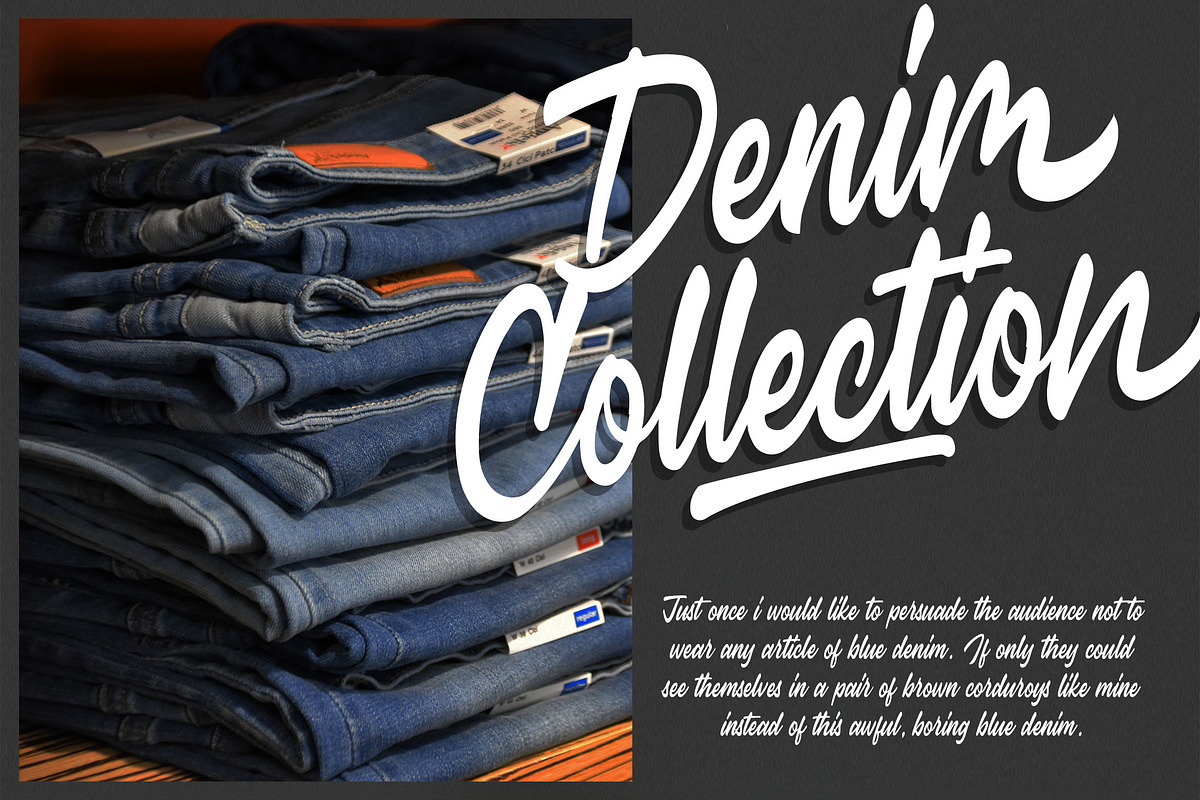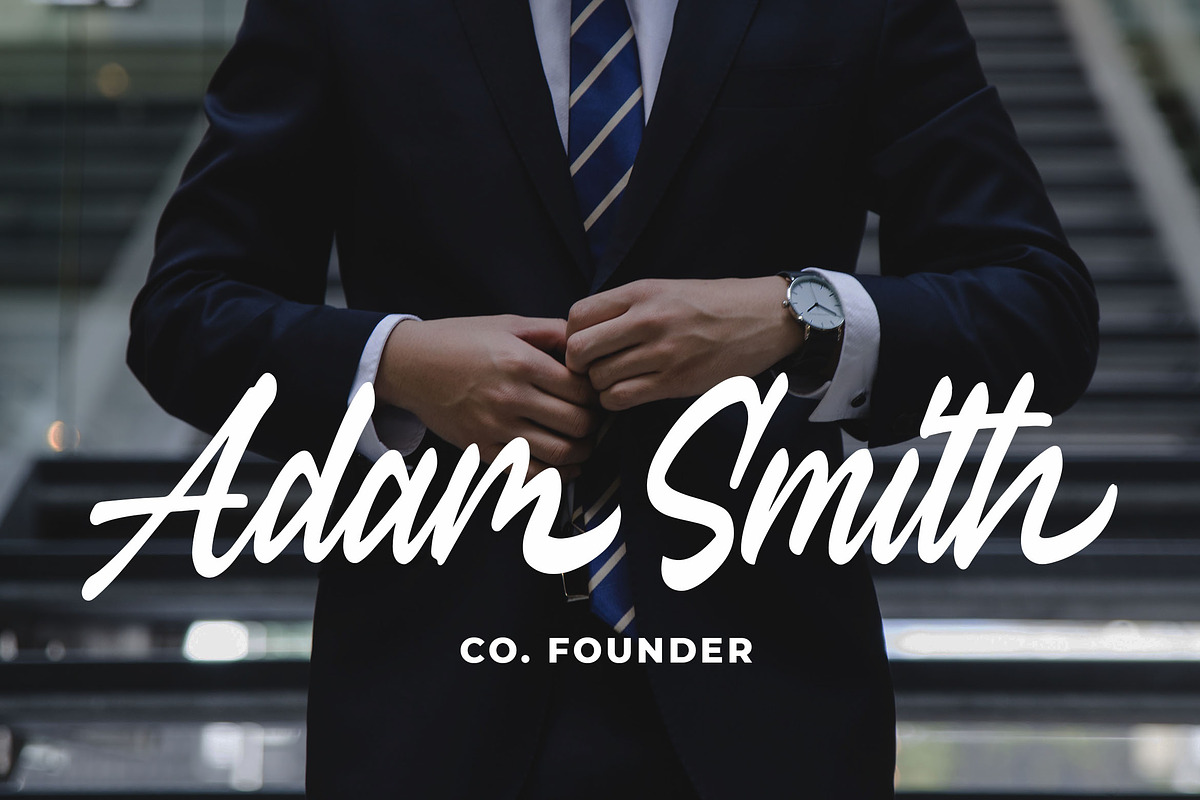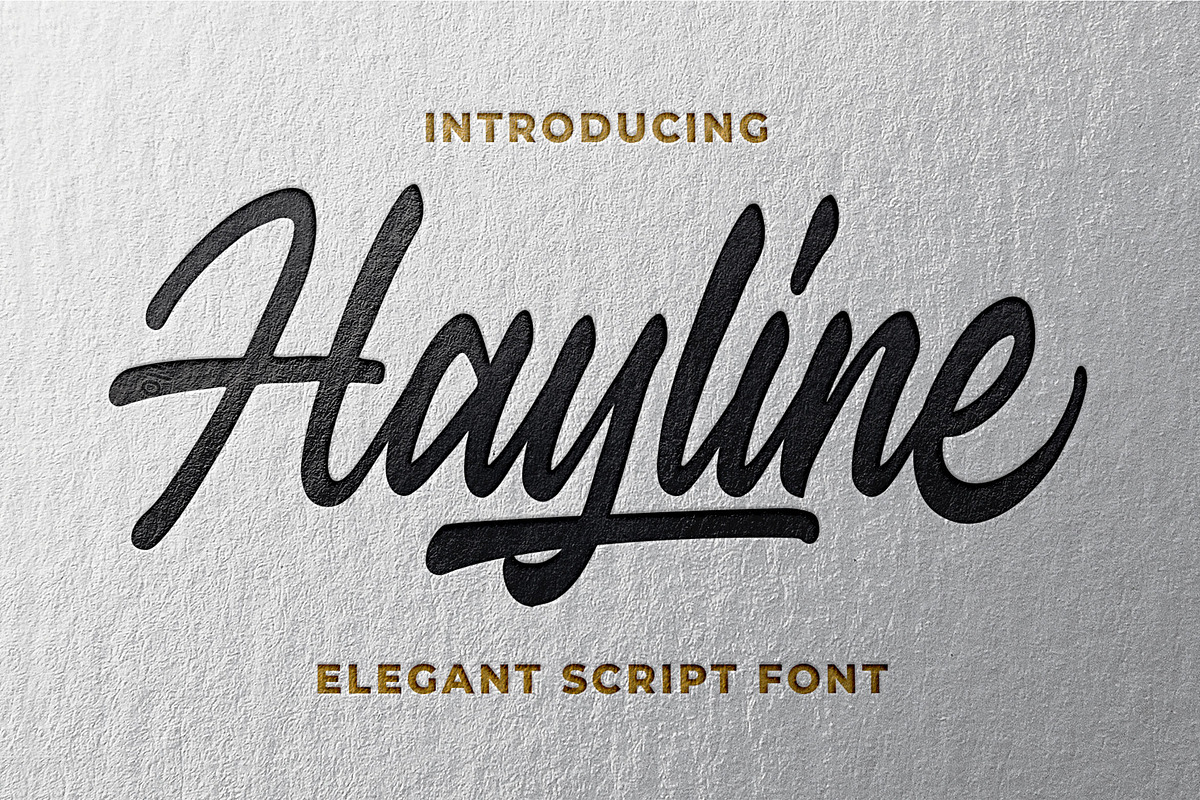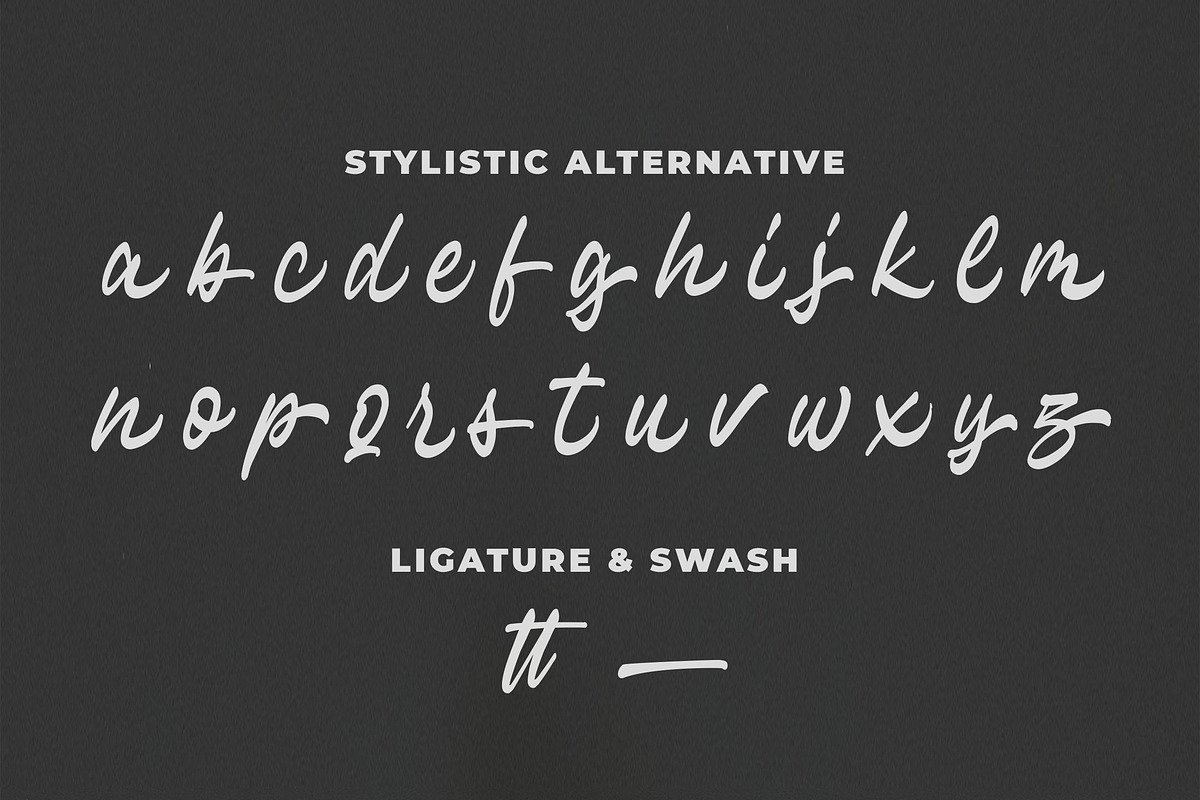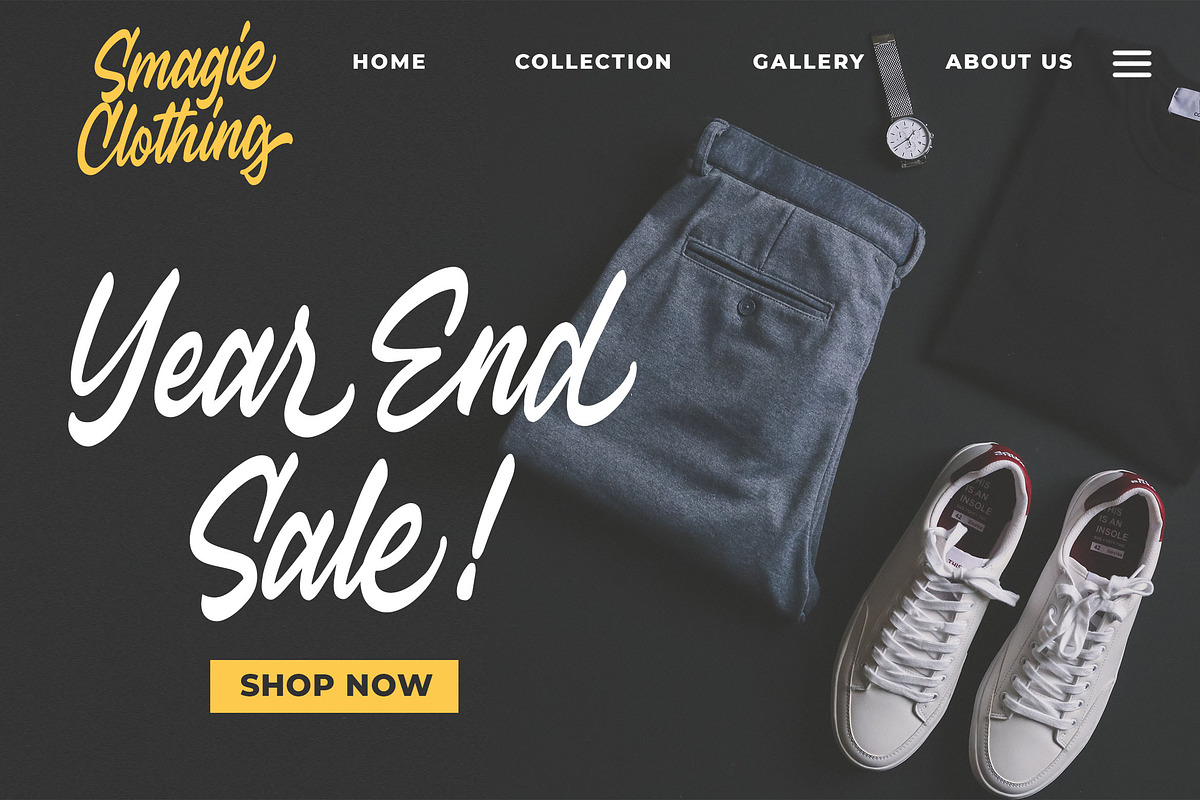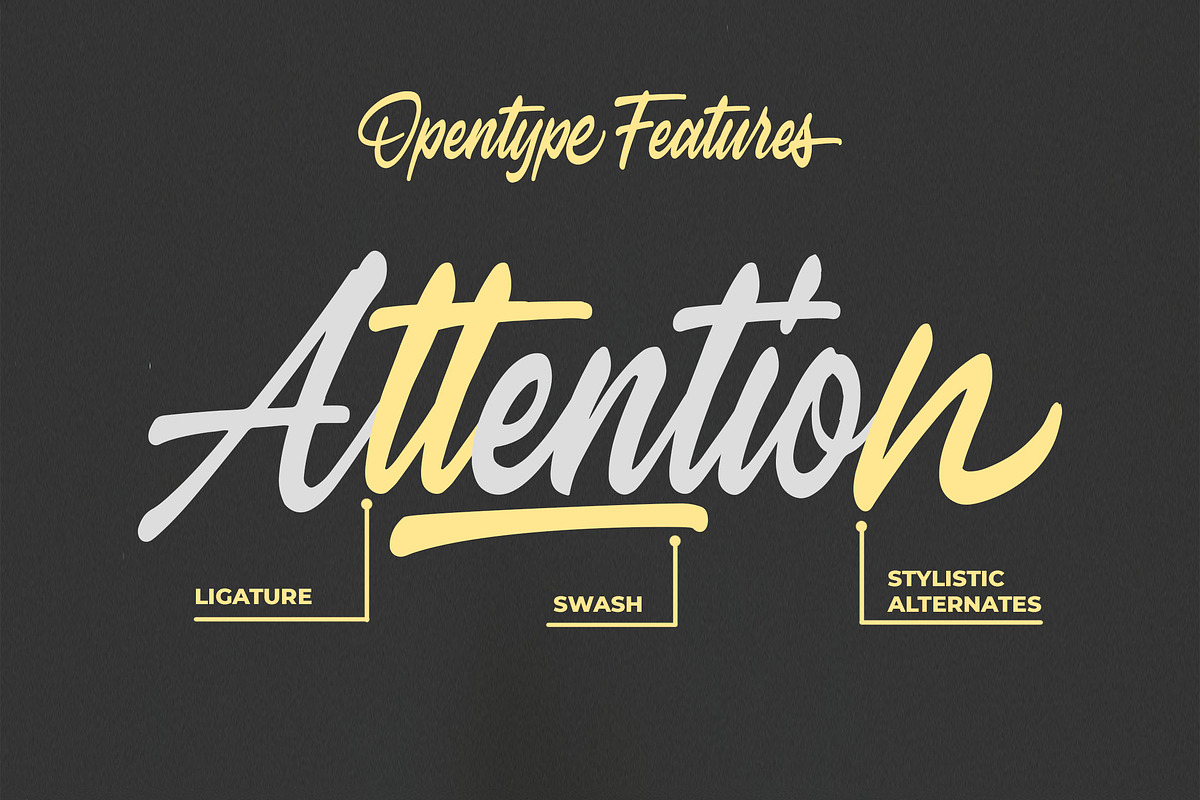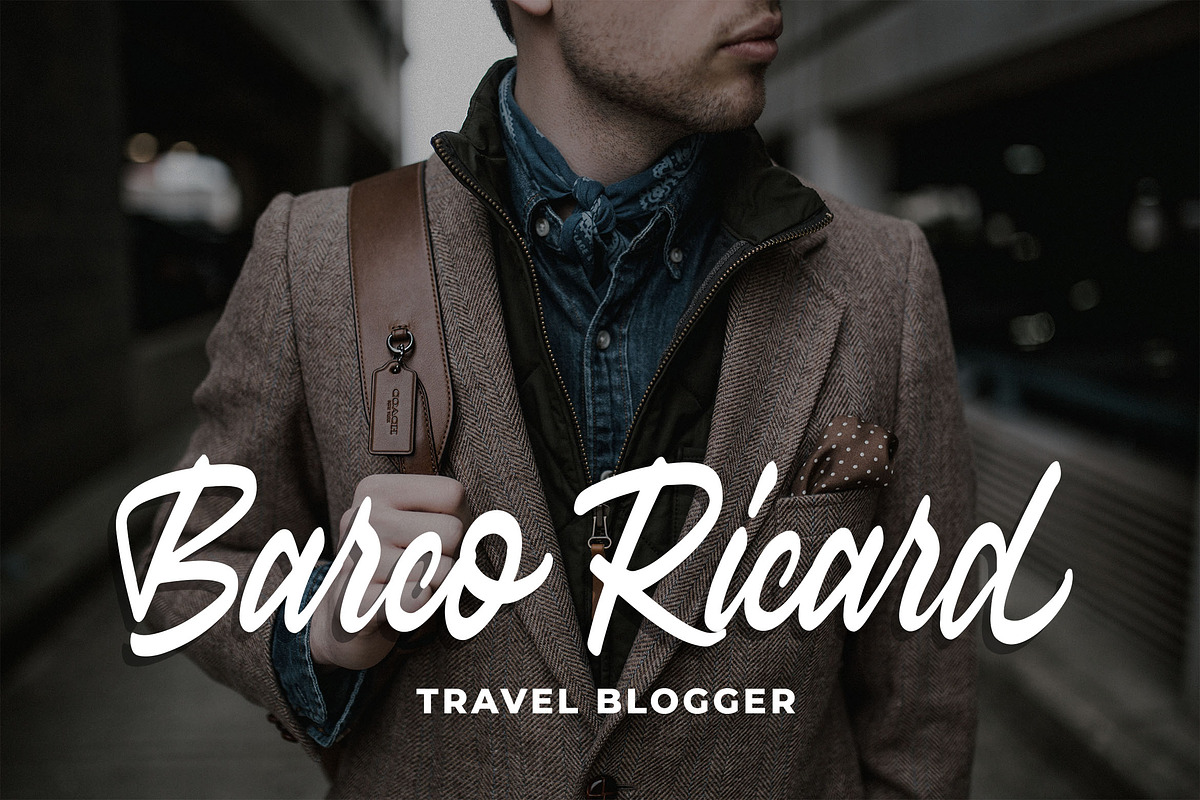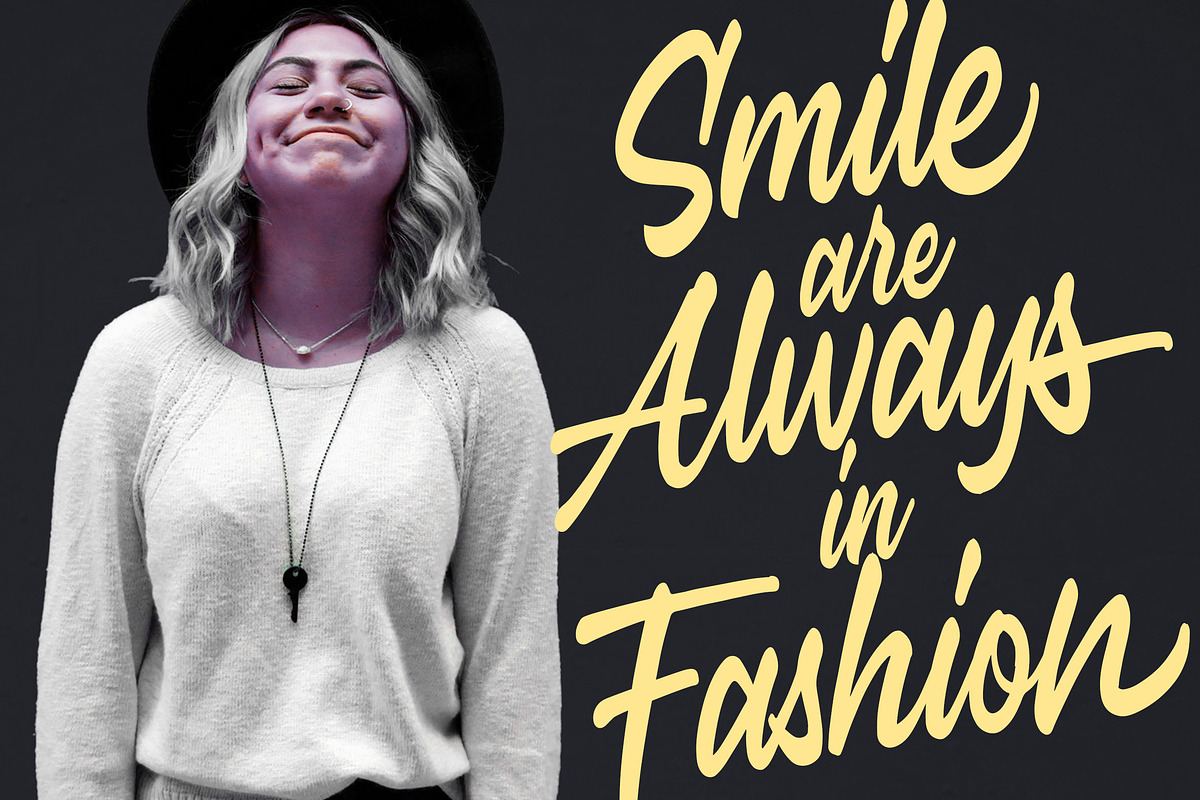
Hayline - Elegant Script Font
Introducing of our new product the name is Hayline Elegant Script Font. Hayline inspired by Clean Brush calligraphy this font is a fun theme very good for signature, poster, fashion, wedding, branding etc
MULTILINGUAL ACCENT :
ŽžŠŒšŸÀÁÂÃÄÅÆÇÈÉÊËÌÍÎÏÐŁÑÒÓÔÕÖØÙÚÛÜÝßàáâãäåæçèéêëìíîïłñòóôõöøùúûüýÿ
- Opentype
Hayline - Elegant Script Font by Blankids Studio fits naturally into Branding, posters, packaging, typography.